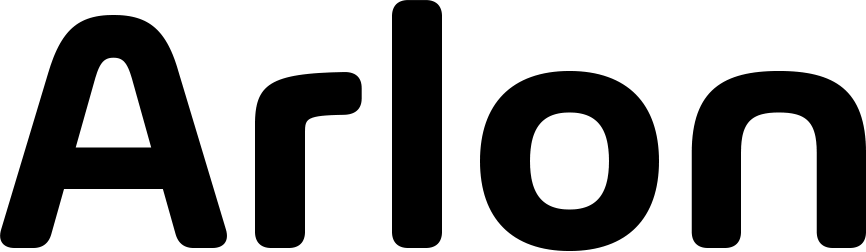
Arlon Font
Arlon is a sans serif font and works great when you want to keep the simplicity and yet inspire the visitors. Choose the style you like and make your typography project in the best way possible. If you need more of this category, check out RB and enjoy hundreds of freebies.